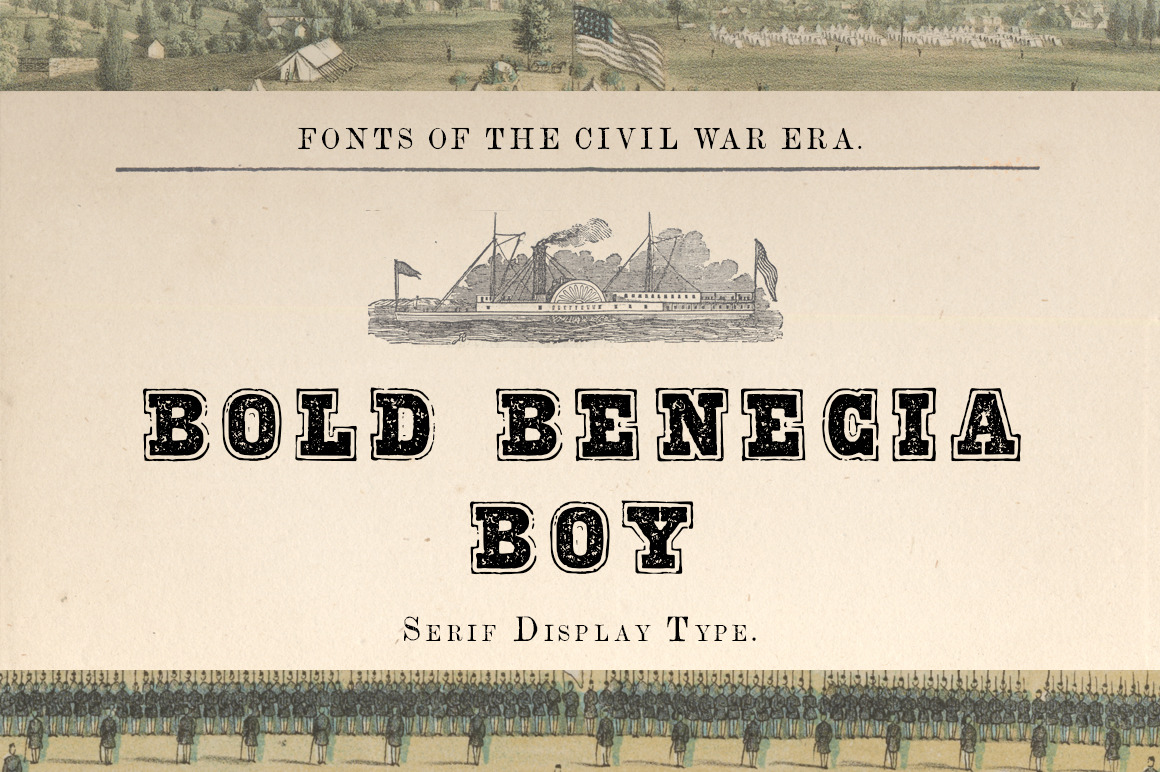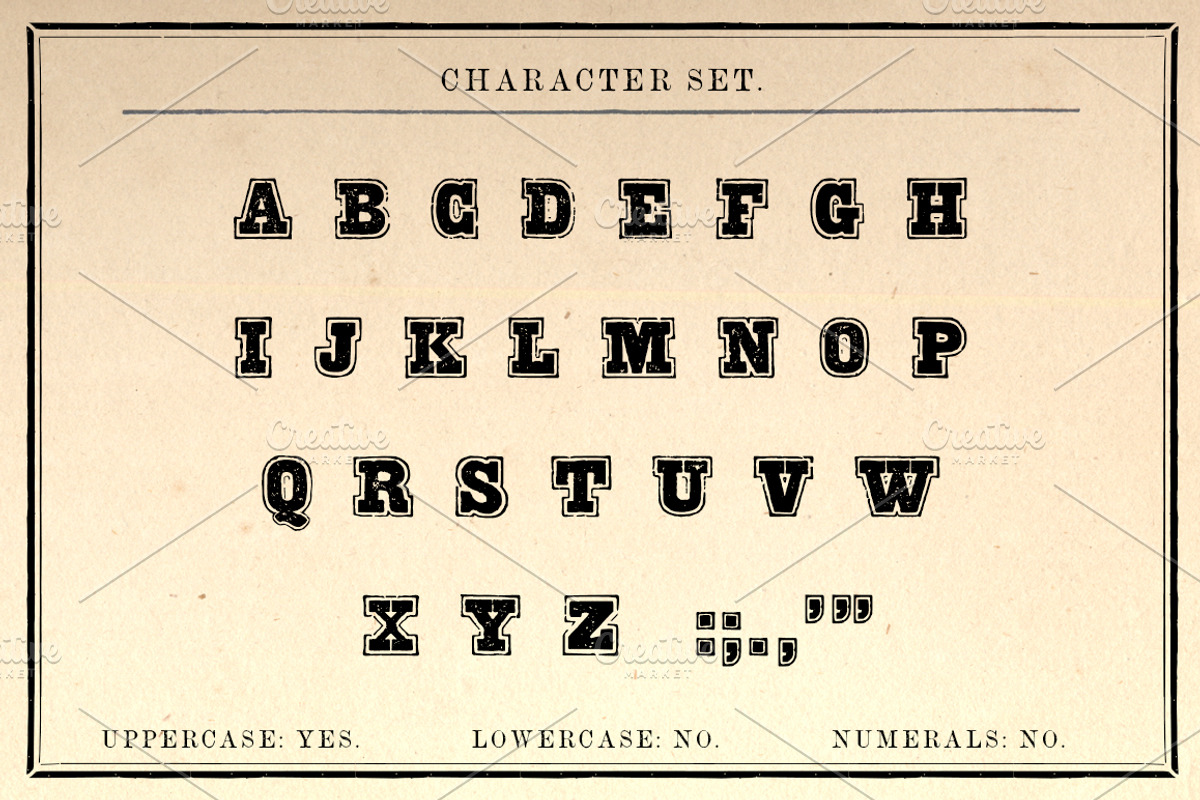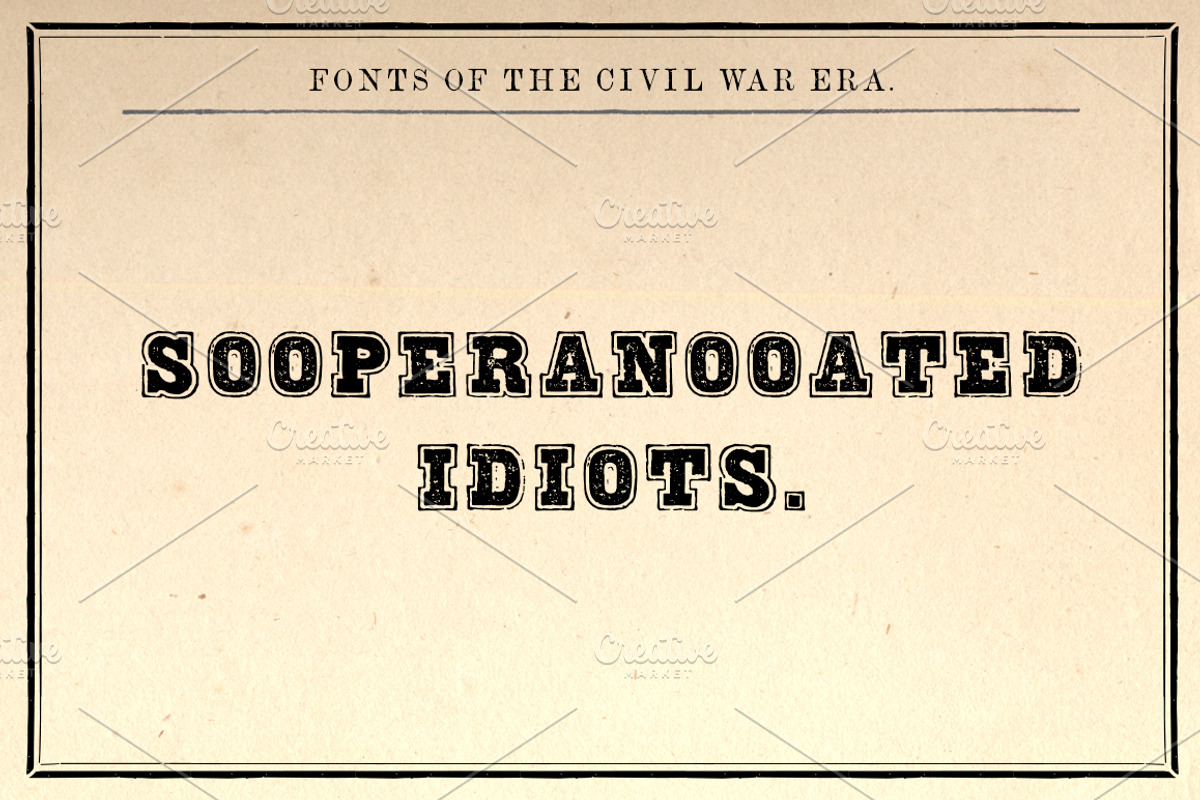
Bold Benecia Boy Display Font
Bold Benecia Boy Regular OTF is an ornamented serifed display font that comes from Volume 2 of The New Blazing Star Press's "Printer's Type Case."
This font is ideal for museums, historical reenactors and living historians, graphic designers, and all lovers of historical typography. Create stunning book covers, band logos and album art, and other high-impact branding projects. Also perfect for game design, packaging design, magazine imagery, wedding invitations, and much more.
- Unique Letterforms
This font DOES NOT include LOWERCASE or NUMBERS, as they did not exist in the original font. The lowercase characters in this set are the same as the uppercase. Only basic punctuation is included.
It was very common for 19th century typesetters to use other fonts to substitute punctuation and numerals missing from a particular typeface.
Since they were scanned directly from the pages of original 150 year-old documents, the letters show imperfections common to letterpress printing.
WHAT'S BEHIND THE NAME "BOLD BENECIA BOY"?
Jack Heenan was one of the most famous bare-knuckle prize fighters of the mid-19th century. He was born in West Troy, New York, but began his fighting career as a brawler in Benicia California while working for the Pacific Mail Steamship Company. It was here he earned the nickname the “Benicia Boy.”
He climbed, quite literally, onto the world stage in a fight against English champion fighter Tom Sayers outside the Hampshire town of Farmborough on April 17, 1860. After 42 rounds and 2 hours and 27 minutes of bloody combat, the authorities rushed the ring to stop the illegal fight. Heenan and Sayers escaped, and eventually shared a prize purse of £400.
ABOUT THE NEW BLAZING STAR PRESS.
All of our Civil War-era historical fonts were copied entirely from ORIGINAL LETTERS scanned from type specimen, business directories, song sheets, broadsides, and advertisements, printed between 1848 and 1867 gathered from museums, private collections, and the Library of Congress. No cheap work done, but instead with a neatness not to be excelled in the Typographical Art.